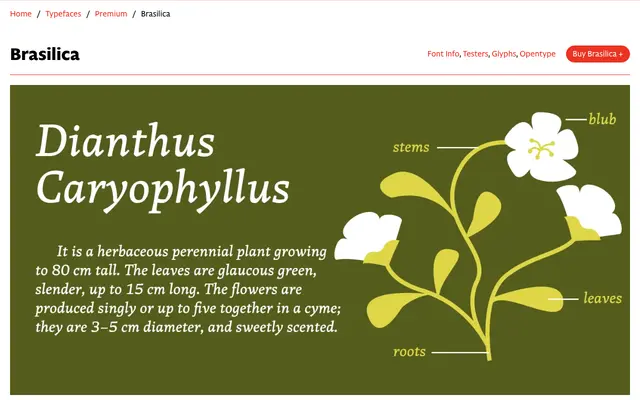
Brasilica
CAST · Rafael Dietzsch · 2015
A text serif designed at the University of Reading to support bilingual Portuguese and Brazilian indigenous language publishing, with wide proportions and strong serifs suited to varied printing conditions.
Developed as a Masters project by Rafael Dietzsch, Brasilica draws on Swift, Skolar and Proforma for its approach to text performance at small sizes. Wide proportions, moderate contrast and sharp, abrupt terminals give it a sturdy, crisp texture distinct from more neutral text faces. The family spans Regular to Black with a single italic, and first appeared publicly in the visual identity for ATypI 2015 in São Paulo.
A text serif with moderate contrast, strong serifs and wide proportions, drawing on influences including Skolar and Swift. The sharp terminals and abrupt connections place it closer to transitional or contemporary text serif territory than a purely humanist design.